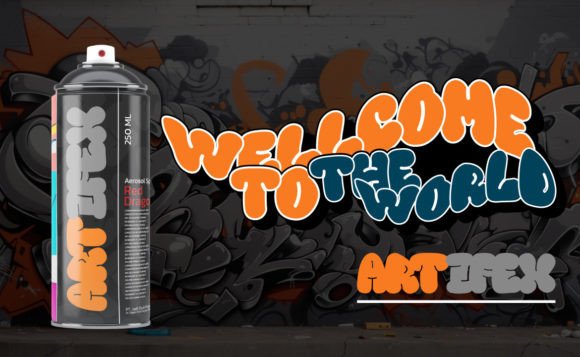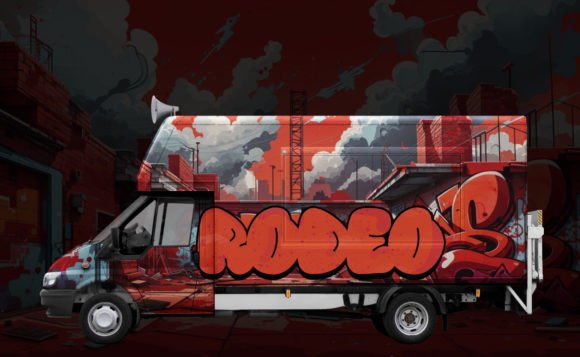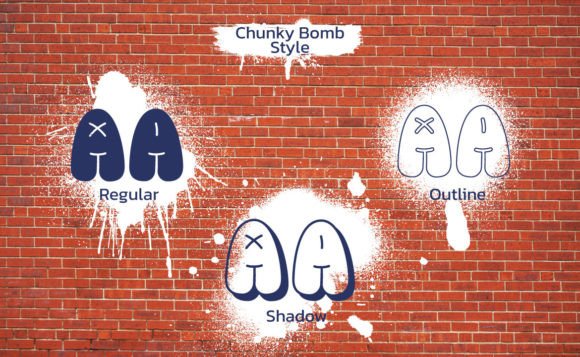
Unlocking the Power of Chunky Bomb Font
As designers, we’ve all been there – staring at a blank canvas, trying to bring a creative project to life. The spark of inspiration hits, and suddenly, the possibilities seem endless. For those who crave a dash of urban charm and nostalgia in their designs, the Chunky Bomb Font is the perfect tool to ignite that creative fire.
This high-quality, free download font is a game-changer for designers looking to add a unique twist to their projects. With its bubble-like appearance and transparent background, the Chunky Bomb Font is an ideal design resource for those seeking to create eye-catching, visually appealing graphics. Whether you’re working on a logo, poster, or social media campaign, this versatile font is sure to elevate your design to the next level.
Key Features of Chunky Bomb Font
- High-quality, bold font with a unique and playful design, perfect for creative projects.
- Designed to be highly legible and visually appealing, making it a great addition to any design resource.
- Perfect for use in a variety of creative projects, including logos, graphics, and typography-based designs.
Honest Review: Chunky Bomb Font
I recently stumbled upon the Chunky Bomb Font and I must say, it’s a game-changer for any creative project. As a designer, I’m always on the lookout for high-quality fonts that can elevate my designs and make them stand out.
One of the things that impressed me about the Chunky Bomb Font is its clean and modern design. The font has a transparent background, which makes it easy to work with and allows for seamless integration with other design elements.
- ✨ Easy to use and customize with its transparent background
- ⚠️ Limited character set, which may not be suitable for all design projects
- ⚠️ Some users may find the font too bold or overpowering
Overall, I’m impressed with the Chunky Bomb Font and I think it’s a great addition to any designer’s toolkit. With its modern design and free download option, it’s definitely worth checking out for your next creative project.
To get the most out of the Chunky Bomb Font, use it on a high-quality transparent background to make it stand out. Experiment with different font sizes and colors to add visual interest to your design project.
The Chunky Bomb Font is perfect for creative projects that require a bold and eye-catching font. Use it for headings, titles, or quotes in your design project to add a touch of personality and style.